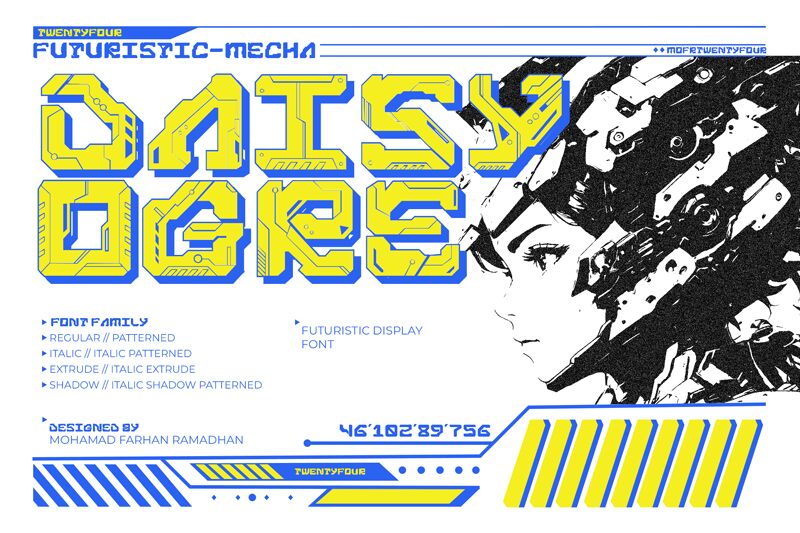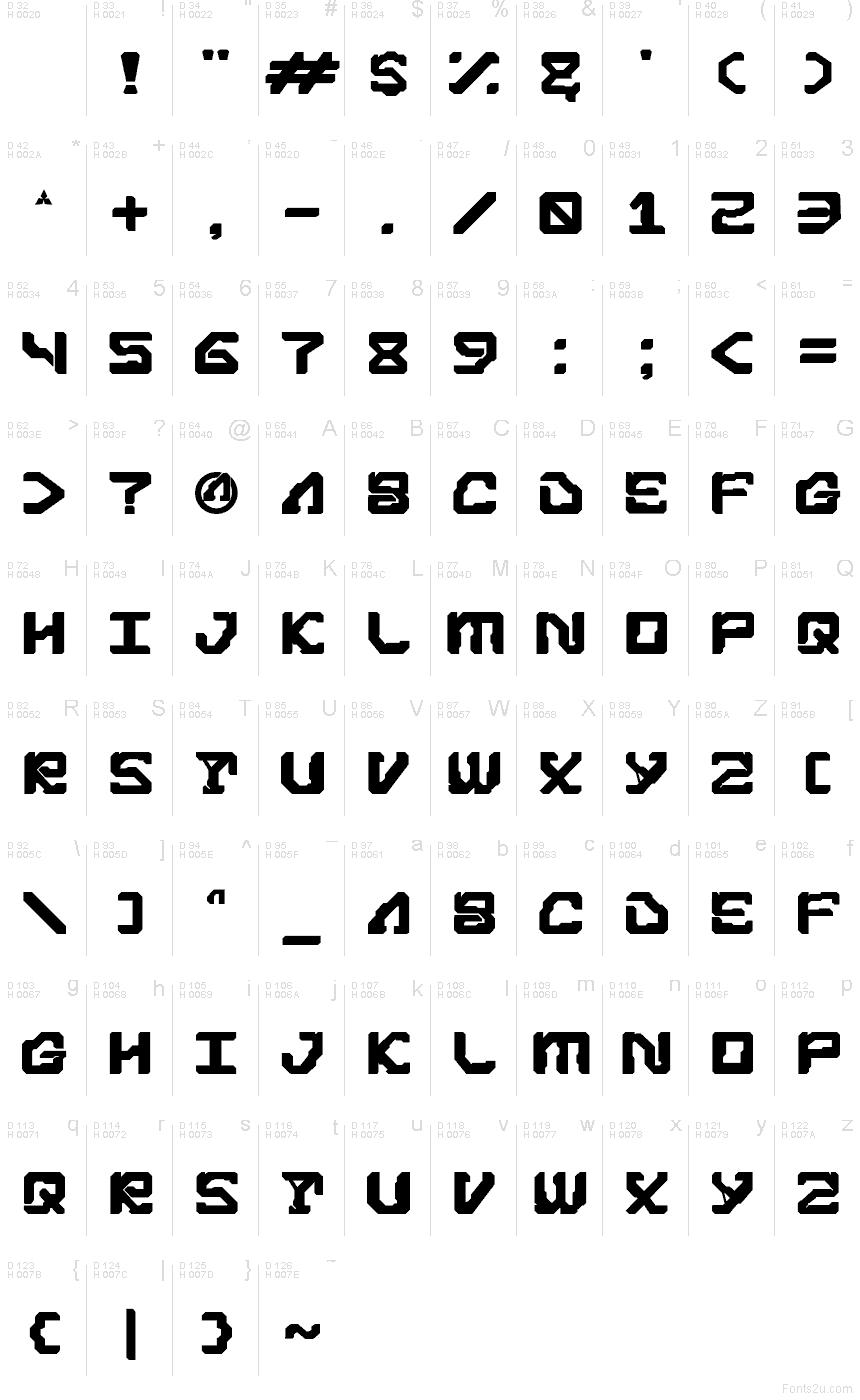
Daisyogre font by Mofr24 is a free futuristic display typeface that looks like it was cut from armored panels and mech plating. Its bold, monospaced rhythm, chunky corners, and angular gaps give every word a hard-edged, mechanical presence, as if your text were stamped onto the side of a giant robot. With eight distinct styles, you can dial the aggression up or down while keeping that same industrial anime energy.
Using Daisyogre, headlines snap into place like modular parts, making it a natural fit for game titles, sci-fi posters, esports branding, tech event graphics, T‑shirt designs, and bold streaming or YouTube thumbnails. This free font thrives at large sizes where its blocky detailing can breathe; pair it with a simple, clean sans-serif for body copy to keep your layouts sharp, readable, and distinctly high-tech.